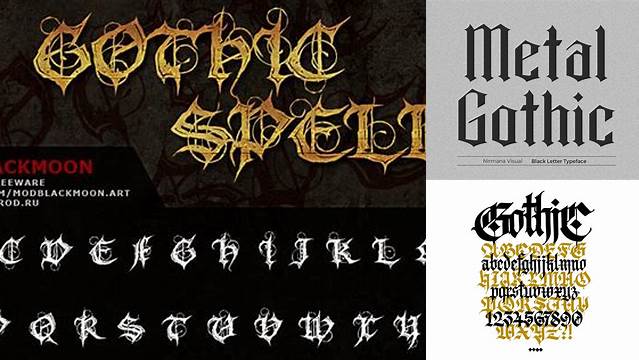
Free Gothic Fonts Generator: Unleash Dark Typography
Hey guys! Ever felt that urge to add a touch of dramatic flair, a hint of mystery, or a seriously cool, edgy vibe to your designs? Maybe you’re working on a band logo, a spooky Halloween invitation, a dark fantasy novel cover, or just want to give your social media posts that extra oomph. Well, you're in luck because diving into the world of gothic fonts has never been easier, especially when you can harness the power of a free gothic fonts generator. These incredible tools are like your secret weapon for unlocking a treasure trove of darkly enchanting typography, all without spending a single dime! It’s all about making your creative vision come to life, and with the right font, you can completely transform the mood and impact of your project. Think about it: a standard, plain font might get the job done, but a beautifully rendered gothic typeface? That’s where the magic happens, guys. It immediately communicates a certain aesthetic – be it ancient, mysterious, elegant, or downright terrifying. And the best part is, you don’t need to be a design guru or have a massive budget to access these killer styles. So, grab your virtual ink and parchment, because we’re about to explore how a free gothic fonts generator can be your ultimate creative companion.
Exploring the Aesthetic Appeal of Gothic Typography
Gothic typography, at its core, is all about evoking a sense of history, drama, and a touch of the arcane. Think medieval manuscripts, ancient castles, and tales of old – that’s the vibe we’re talking about. When you first encounter a free gothic fonts generator, you’re immediately presented with a vast array of styles that can transport your audience. These aren't your everyday, run-of-the-mill fonts; they’re designed with intricate details, sharp lines, and often a sense of imposing grandeur. The aesthetic appeal lies in their ability to convey powerful emotions and establish a distinct mood. Whether you're aiming for a look that’s elegant and ornate, reminiscent of illuminated manuscripts, or something more rugged and distressed, like ancient stone carvings, gothic fonts offer incredible versatility. They can make a simple word look like a mystical incantation or a mundane phrase feel like a royal decree. The contrast they create is often striking, making them perfect for projects that need to stand out. For instance, imagine a wedding invitation with a delicate, calligraphic gothic font – it screams romance and timeless elegance. Conversely, a horror movie poster might use a sharp, jagged gothic font to create a sense of immediate dread and unease. The beauty of these fonts is their inherent ability to communicate so much visually before a single word is even read. They add layers of meaning and personality, making your designs memorable and impactful. Plus, exploring the different variations within gothic styles – from the more legible blackletter to the more stylized, decorative variants – allows for a nuanced approach to design. You can choose a font that perfectly matches the specific historical period or emotional tone you’re trying to capture, ensuring your message resonates deeply with your intended audience. It's like having a whole palette of moods and eras at your fingertips, all accessible through the power of typography.
Finding the Best Free Gothic Fonts Generator Online
So, you’re on the hunt for that perfect, dark font, and you want it for free. Smart move, guys! The digital world is brimming with resources, but not all free gothic fonts generator tools are created equal. When you’re browsing online, keep an eye out for platforms that offer a diverse selection. Some sites specialize in specific gothic styles, while others have a broader range. Look for generators that allow you to preview your text in real-time with different fonts. This is crucial because seeing how your brand name or project title looks before you download is a game-changer. You want a generator that’s user-friendly, with a clean interface that doesn’t overwhelm you with ads or complicated options. Some of the top-tier generators also offer customization features, allowing you to tweak kerning, spacing, or even character styles to achieve a truly unique look. Don’t shy away from checking user reviews or ratings if available; they can offer valuable insights into the quality and usability of the generator. Another important aspect is the licensing. While most free generators provide fonts for personal use, always double-check if they also permit commercial use, especially if you plan to use the fonts on products you’re selling or for business branding. Reputable sites will clearly state the licensing terms. Consider generators that also offer a variety of gothic sub-styles, such as Fraktur, Textura, or Schwabacher, so you can pinpoint the exact historical or stylistic nuance you need. Experimentation is key here; try typing in different phrases to see how the fonts handle various letter combinations and lengths. A good generator should feel intuitive, allowing you to cycle through options quickly and efficiently, saving you valuable design time. Ultimately, the best generator is the one that provides high-quality, diverse gothic fonts with clear licensing and an enjoyable user experience, making your creative process smooth and rewarding.
The Versatility of Gothic Fonts in Digital Design
Guys, let’s talk about how gothic fonts have seriously leveled up in the digital design world. Gone are the days when they were just confined to ancient manuscripts or horror movie posters. Today, these fonts are incredibly versatile and can add a sophisticated, edgy, or even romantic touch to a wide range of digital projects. Think about web design: incorporating a subtle gothic font for headings or call-to-action buttons can give a website a unique personality, making it instantly more memorable. For social media graphics, a bold gothic font can make your text pop, grabbing attention in a crowded feed. Imagine creating eye-catching Instagram story highlights with different gothic styles, or designing a striking Facebook cover photo. Even in app development, gothic fonts can be used to create distinctive user interfaces, adding a touch of premium or thematic flair. Email newsletters can benefit from a touch of gothic elegance to make announcements or special offers feel more exclusive. Furthermore, in the realm of digital art and illustration, gothic fonts are invaluable for adding text elements that complement the overall aesthetic, whether it's a fantasy-themed digital painting or a stylized portrait. They offer a way to convey a narrative or evoke a specific mood that standard fonts simply can’t match. The key is understanding how to use them effectively. Overdoing it can quickly turn elegant into overwhelming, but used judiciously, a gothic font can elevate your design from ordinary to extraordinary. Consider pairing a more intricate gothic font with a simpler, modern font to create visual contrast and ensure readability. This balance is crucial for effective digital communication. The accessibility provided by free gothic fonts generator tools means that even independent creators, bloggers, or small businesses can leverage this powerful typographic style without breaking the bank, democratizing access to high-impact design elements and allowing for greater creative expression across the digital landscape.
Mastering Blackletter Styles with a Free Generator
Blackletter, often synonymous with the term